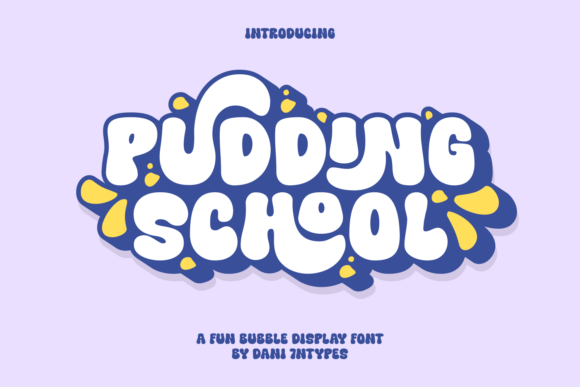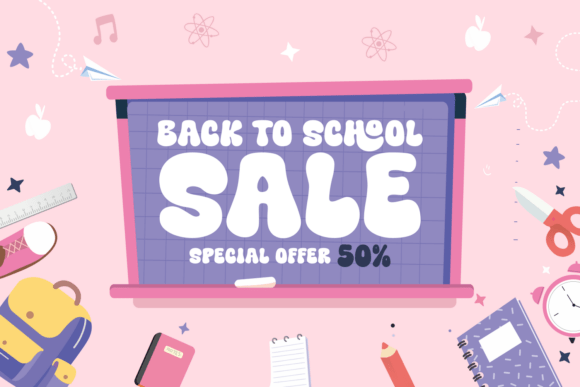
Pudding School Font
Say hello to Pudding School, a playful bubble font full of joy and youthful energy! Perfect for kid-themed designs, school projects, posters, packaging, and fun branding – this font brings a splash of happiness wherever it goes.
Each letter feels soft and plump like a sweet pudding, with quirky curves and cheerful details that make your words come alive. With its bold look and charming personality, Pudding School will instantly grab attention and spark creativity!